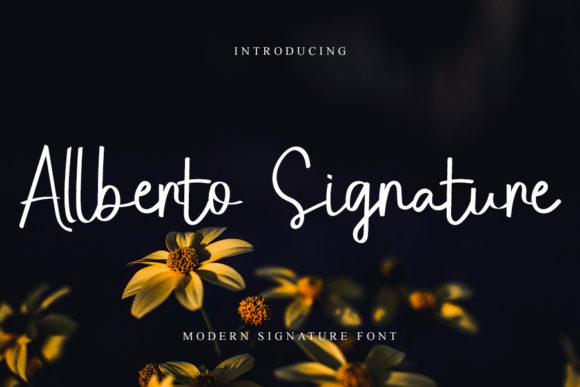
The Sweet Charm of Allberto Signature Font
Have you ever been in the middle of a design project, and suddenly, you’re stuck on finding the perfect font? I recall a recent experience where I was working on a romantic wedding invitation, and my client specifically asked for a font that would evoke a sense of joy and whimsy. After hours of searching, I stumbled upon Allberto Signature Font, and it instantly became the perfect fit. In this article, I’ll share my love for this beautiful font, its features, and how to make the most of it in your designs.
A Personal Review of Allberto Signature Font
Allberto Signature Font is a sweet and cursive handwritten font that adds a gentle touch to any design project. Here’s what I love about it:
- ✨ Sweet and playful feel: Allberto Signature Font has a whimsical and romantic vibe that’s perfect for wedding invitations, greeting cards, and other creative projects.
- ✅ Elegant and cursive: The font’s cursive style adds a touch of sophistication and elegance to any design.
- 🌈 Versatile: Allberto Signature Font can be used for a variety of design ideas, from digital graphics to print materials.
While Allberto Signature Font is a beautiful font, it’s not without its quirks. Here are a few things to keep in mind:
- 🤔 Limited use in body text: Due to its cursive nature, Allberto Signature Font might not be the best choice for long blocks of body text. It’s better suited for headings, titles, and short paragraphs.
- ⚠️ Requires attention to spacing: As with any script font, it’s essential to pay attention to spacing to ensure that the text doesn’t look too crowded or messy.
The Story Behind Allberto Signature Font
Allberto Signature Font was created with the intention of capturing the essence of a handwritten signature. The designer aimed to create a font that would evoke a sense of warmth, joy, and romance. While I couldn’t find any specific information on the designer’s inspiration, it’s clear that Allberto Signature Font is a labor of love that’s perfect for creative projects.
| What type of projects is Allberto Signature Font best suited for? | Allberto Signature Font is perfect for designs that require a sweet and playful feel, such as wedding invitations, greeting cards, and other creative projects. |
| Is Allberto Signature Font suitable for body text? | No, Allberto Signature Font is better suited for headings, titles, and short paragraphs due to its cursive nature. |